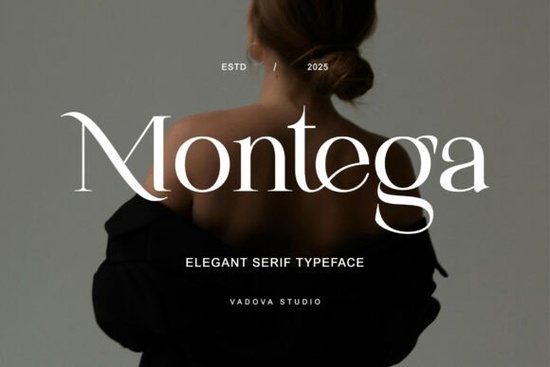
If you're searching for a serif typeface that feels luxurious without being overdone, the Montega Font is worth a close look. It's a modern serif with graceful curves, high-contrast strokes, and delicate details that work beautifully for fashion branding, beauty packaging, and editorial layouts. Whether you're designing a logo for a boutique or laying out a magazine spread, Montega brings a refined, feminine energy that's hard to fake with standard fonts.
This font sits in that sweet spot between classic elegance and contemporary style. It doesn't try too hard it simply looks expensive. And for designers who work with premium clients or sell upscale products, that kind of visual language matters.
What Makes Montega Different from Other Serif Fonts?
Plenty of serif fonts aim for elegance, but many end up feeling stiff or outdated. Montega avoids that trap by combining high-contrast letterforms with soft, flowing curves. The serifs are thin and delicate rather than heavy, which gives the typeface a lighter, more modern feel.
Think of it this way: some serif fonts feel like a boardroom, while Montega feels like a boutique hotel lobby. It's polished but approachable, luxurious but not cold. That balance makes it versatile enough for a range of projects from logo design to wedding invitations to editorial headers.
Compared to something like the Sharp History Font, which leans into bold, architectural forms, Montega takes a softer, more feminine direction. It's less about making a loud statement and more about quiet confidence.
What Can You Use the Montega Font For?
Montega works especially well for projects where premium quality and sophistication are part of the brand identity. Here are some practical uses:
- Fashion and beauty logos The refined letterforms pair well with minimalist brand marks.
- Magazine and editorial layouts Use it for headlines and pull quotes to add visual interest.
- Packaging design Skincare, cosmetics, and jewelry brands benefit from its upscale look.
- Social media graphics Instagram posts and Pinterest pins for lifestyle brands.
- Wedding stationery Save-the-dates, menus, and programs with an elegant touch.
- Print-on-demand products Mugs, tote bags, and apparel targeting feminine or luxury markets.
If you sell on platforms like Etsy or Redbubble, pairing Montega with clean layouts can help your products attract buyers who associate serif fonts with quality and trust. It's a small design choice that can shift how people perceive your brand.
How Does Montega Compare to Other Elegant Serifs?
What sets Montega apart is its signature letterforms. The uppercase characters, in particular, have a distinctive flair that makes logos and branding work feel custom-designed. It doesn't look like every other serif on the market and that matters when you're building a visual identity.
Who Is Montega Best Suited For?
Montega is a strong fit for:
- Freelance designers working with fashion, beauty, or lifestyle clients
- Small business owners building a premium brand from scratch
- Print-on-demand sellers targeting upscale or feminine niches
- Crafters and hobbyists who want their DIY projects to look polished
- Content creators designing social media graphics or digital products
If your audience expects elegance whether that's a skincare brand, a wedding planner, or a boutique clothing line Montega gives you the typographic foundation to deliver that feeling consistently.
What Should You Pair Montega With?
A strong serif like Montega benefits from a clean sans-serif companion for body text. Think of fonts like Montserrat, Lato, or Open Sans for paragraphs and supporting copy. Let Montega handle the headlines, logos, and display text where its personality can shine.
Avoid pairing it with other ornate or decorative fonts that creates visual noise. The goal is to let Montega's high-contrast strokes and elegant curves do the talking while your secondary font keeps things readable and grounded.